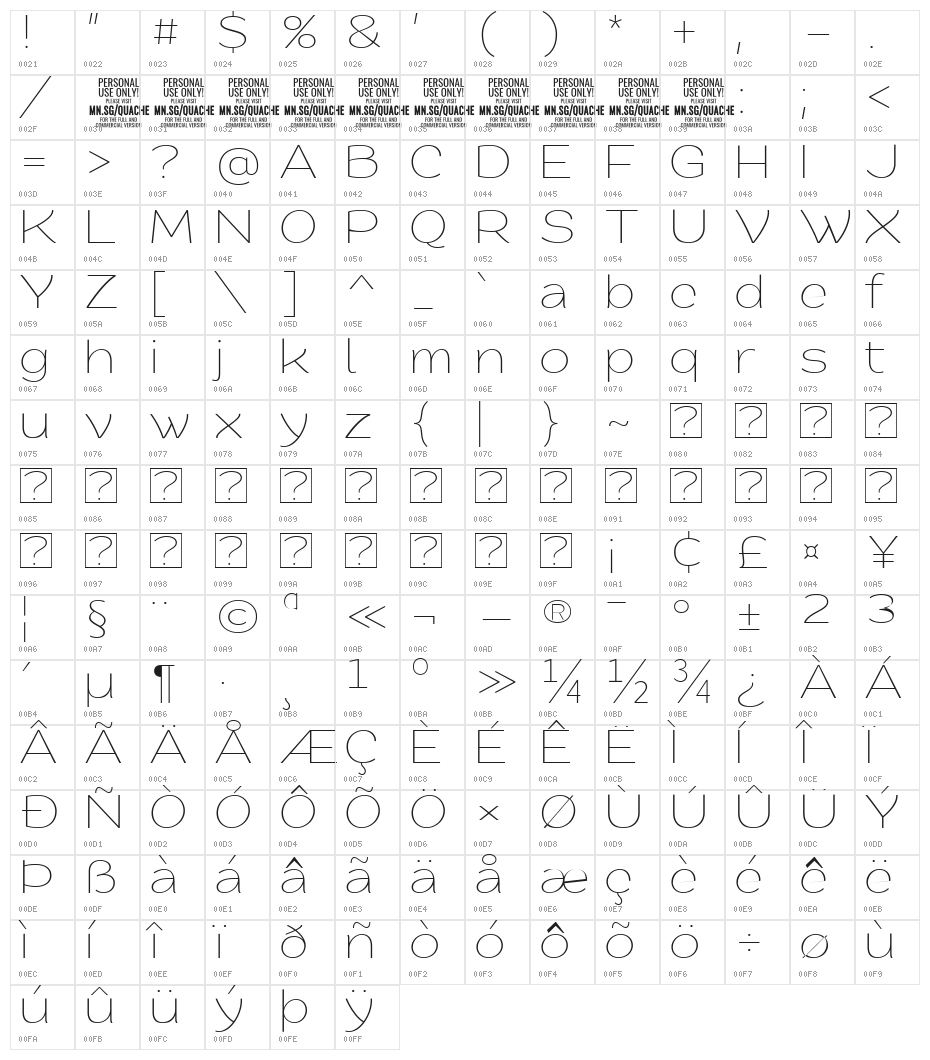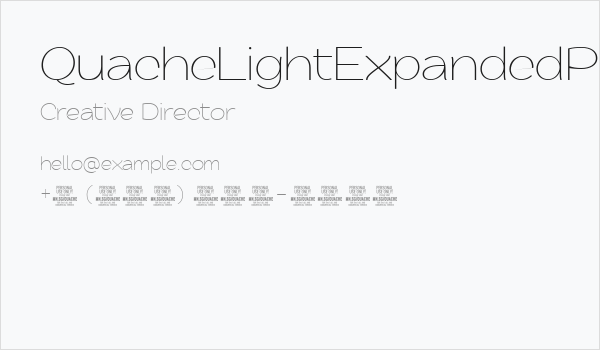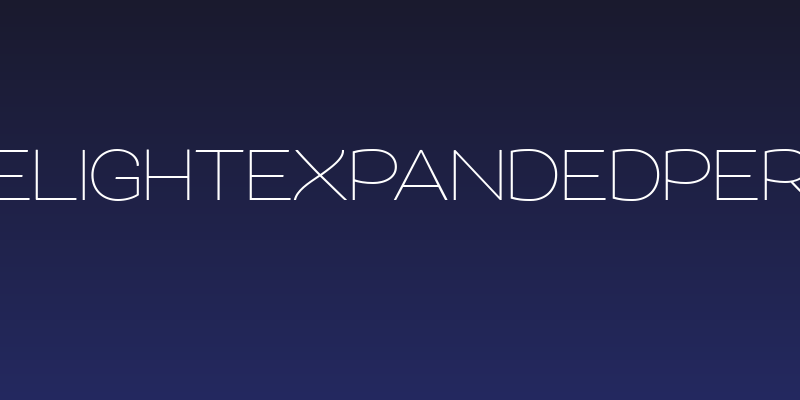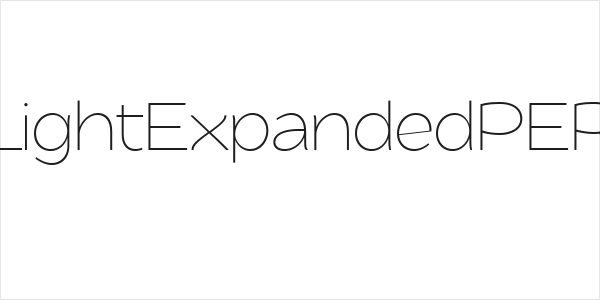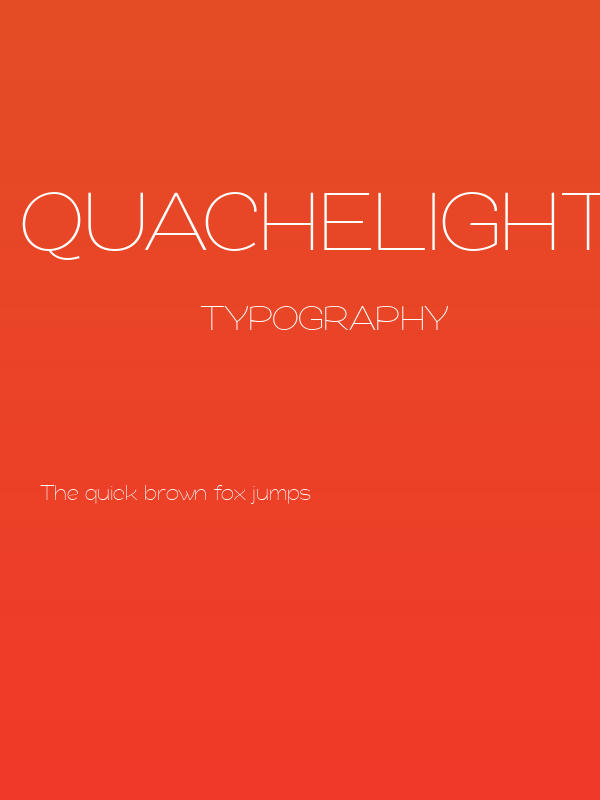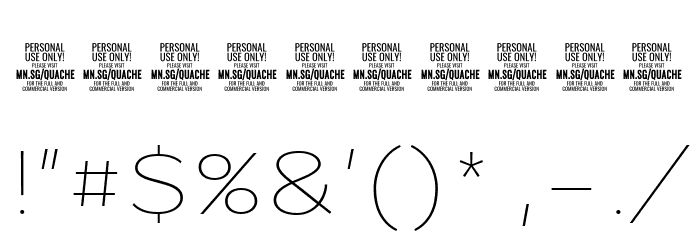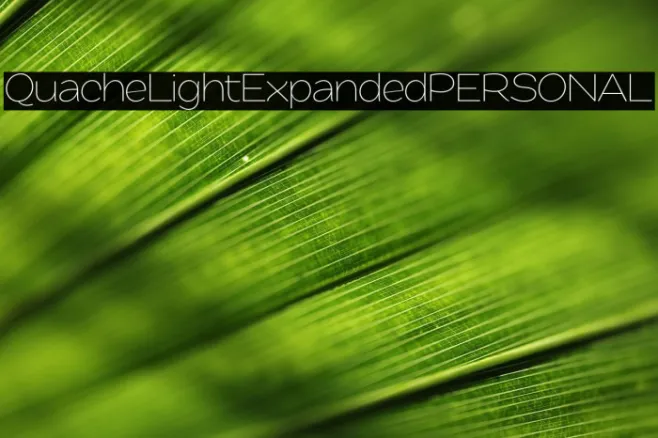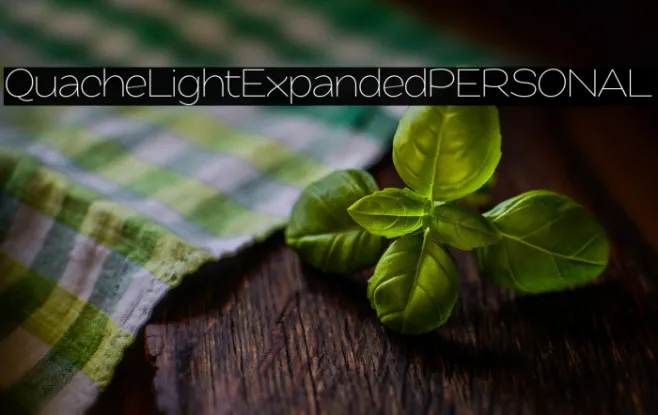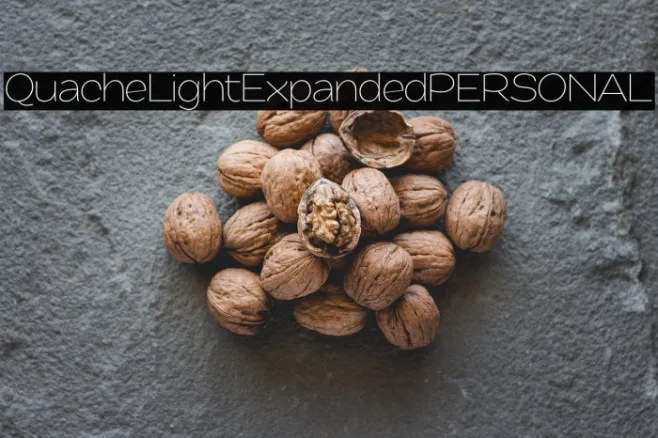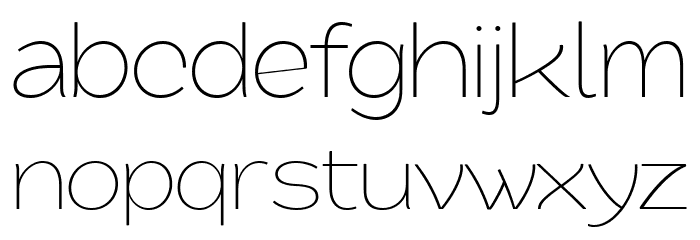
QuacheLightExpandedPERSONAL Font
QuacheLightExpandedPERSONAL Description
This font features a clean and minimalistic design with thin, elongated letterforms that convey a sense of modernity and elegance. The characters are uniformly expanded, providing a spacious and airy feel. The uppercase and lowercase letters maintain a consistent style, with smooth curves and straight lines that enhance readability. The numerals and special characters are designed to match the overall aesthetic, making them suitable for a variety of applications. The font's simplicity and clarity make it an excellent choice for projects that require a contemporary and sophisticated look.
| Proposed Projects | Ideal for branding, editorial design, web design, and minimalist posters. |